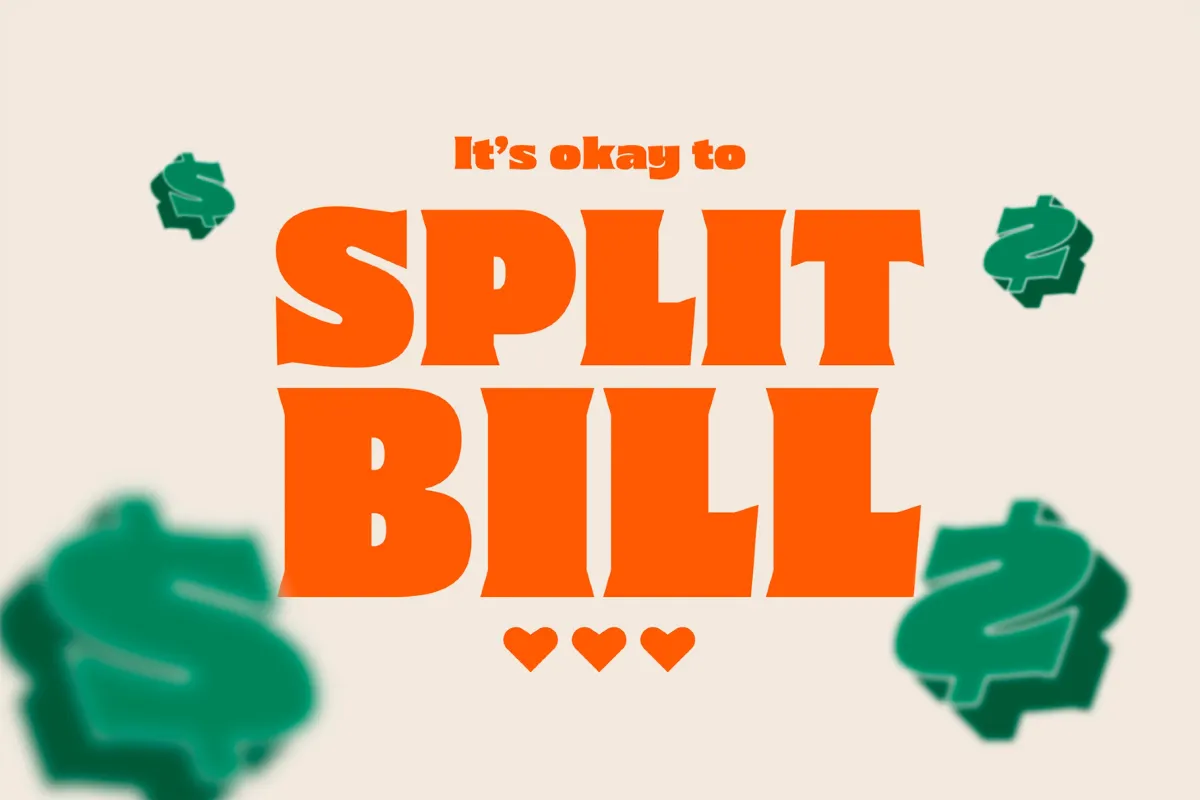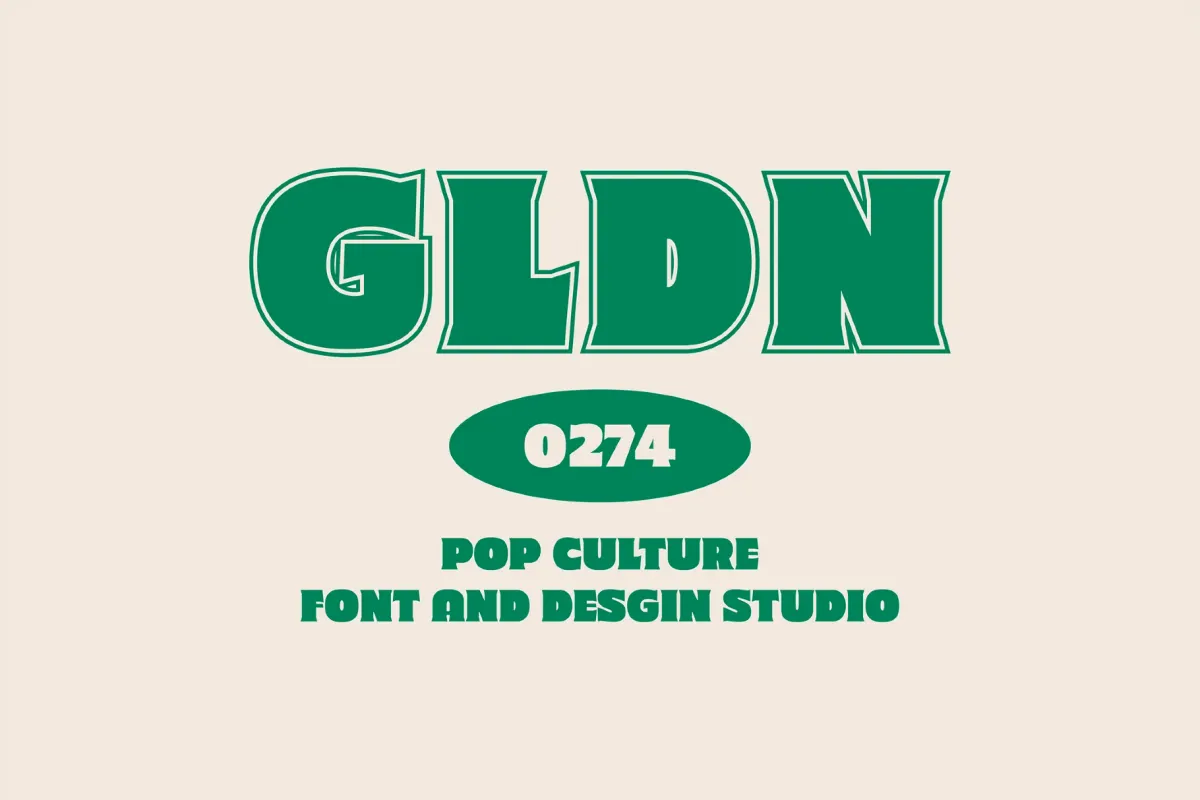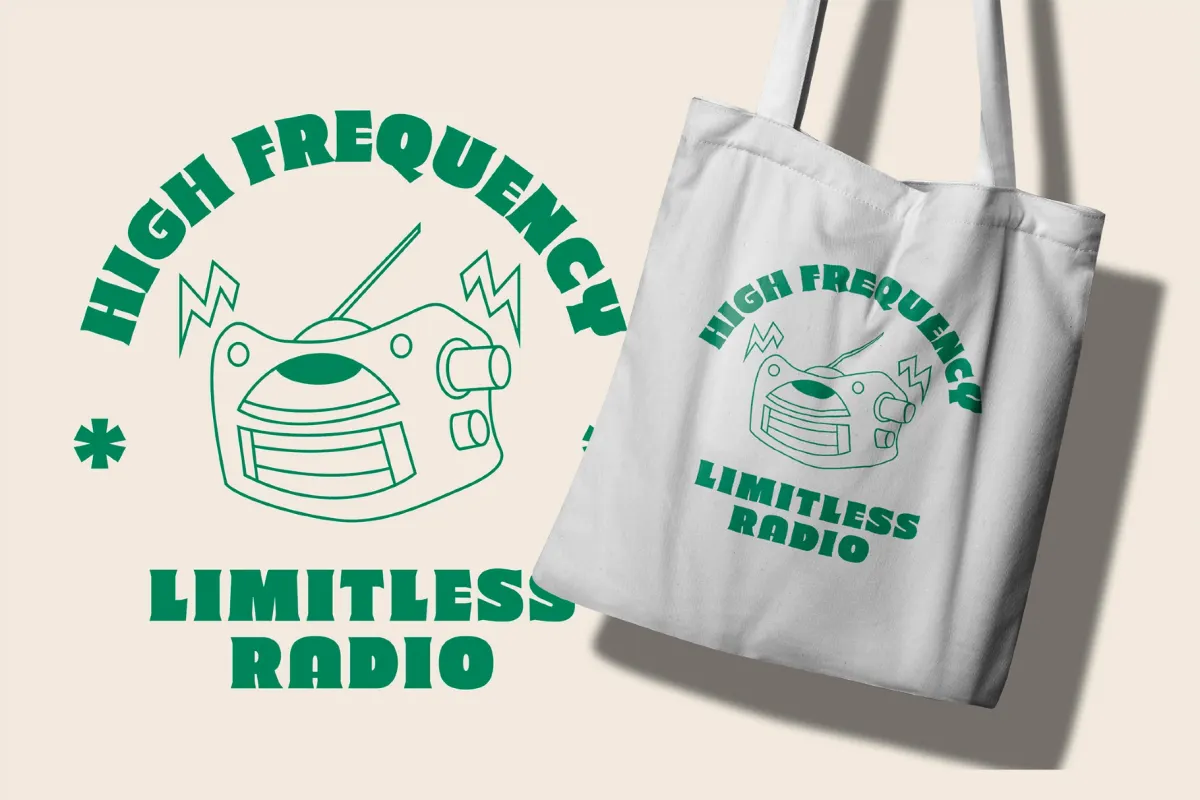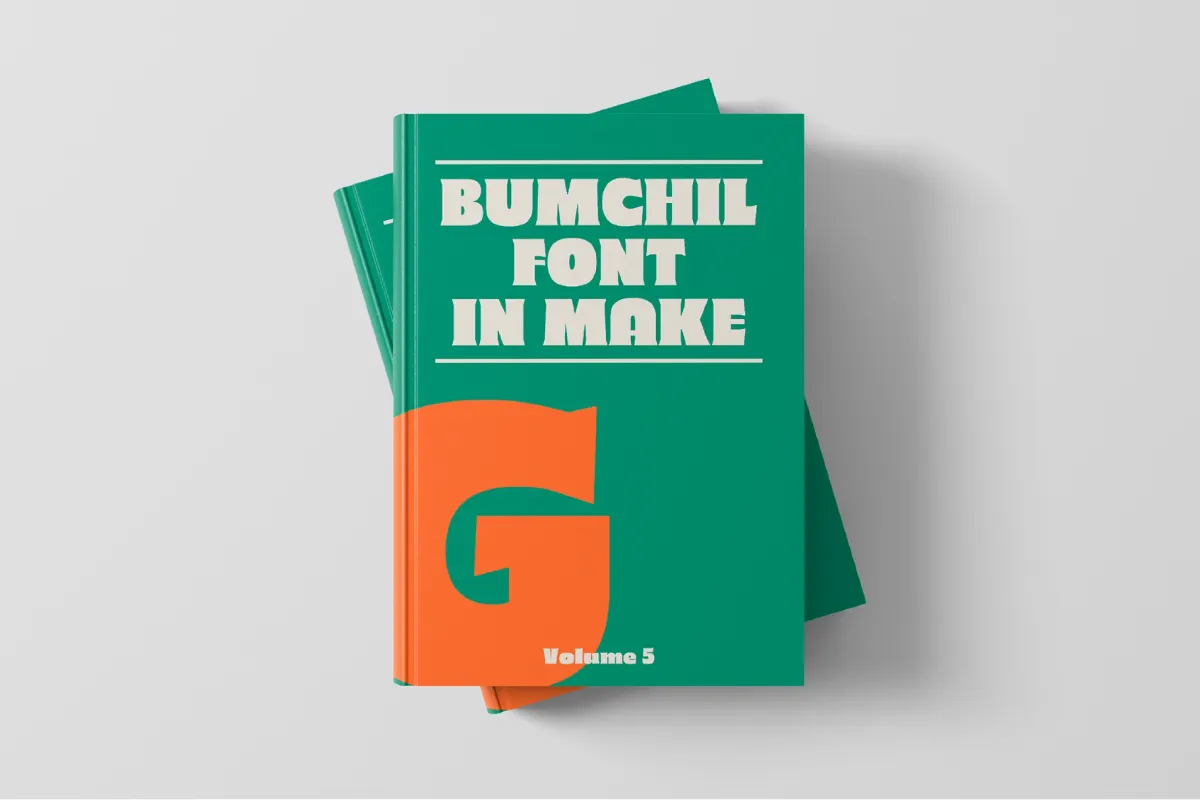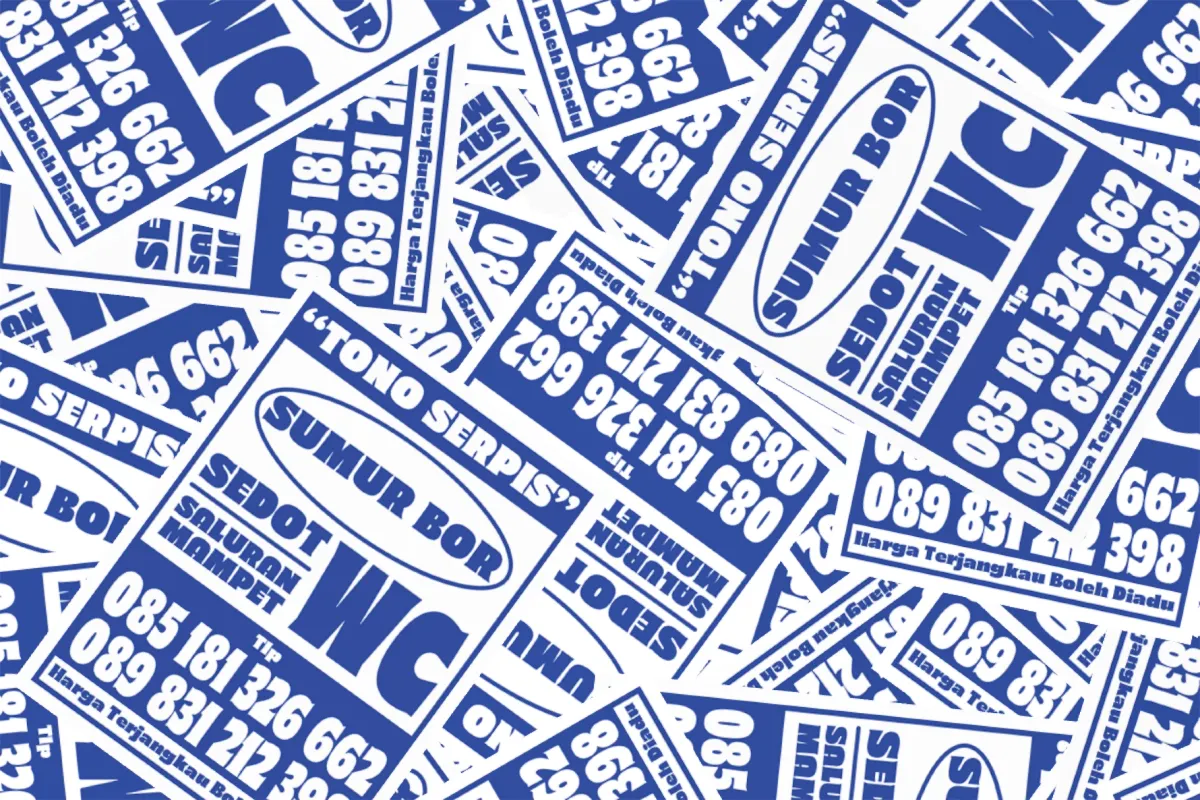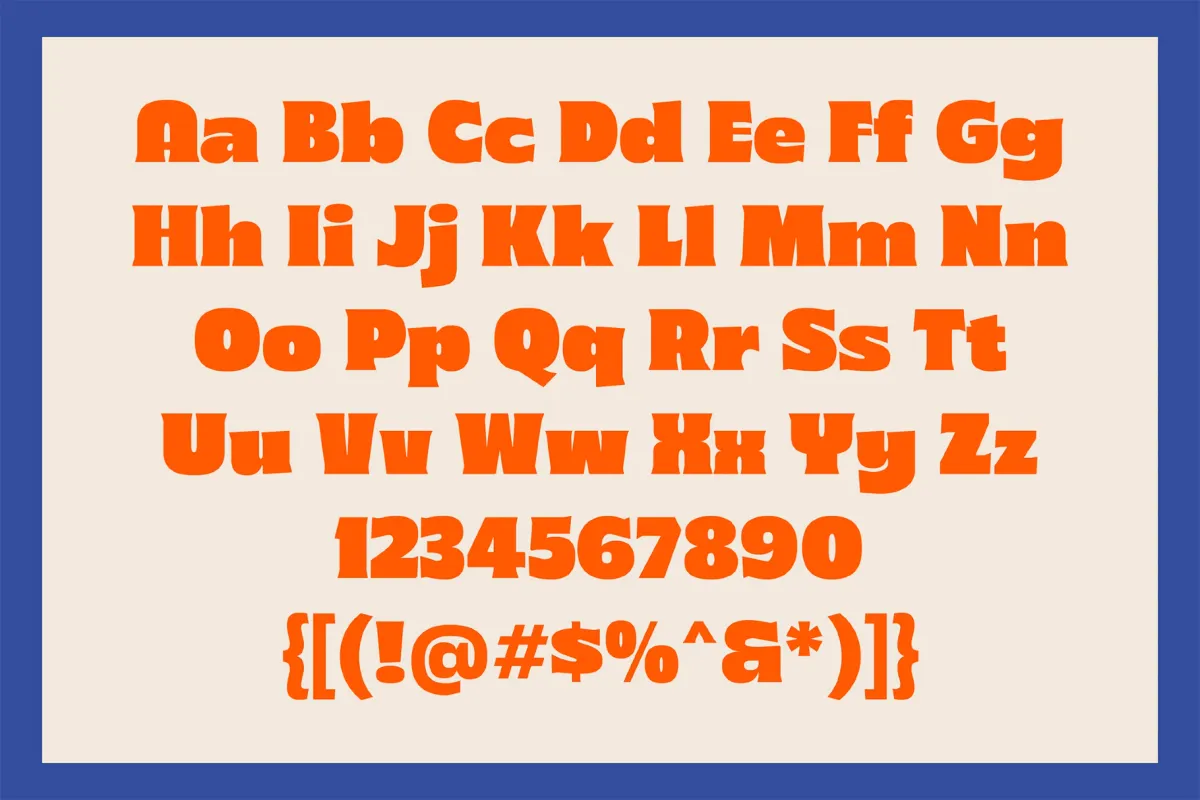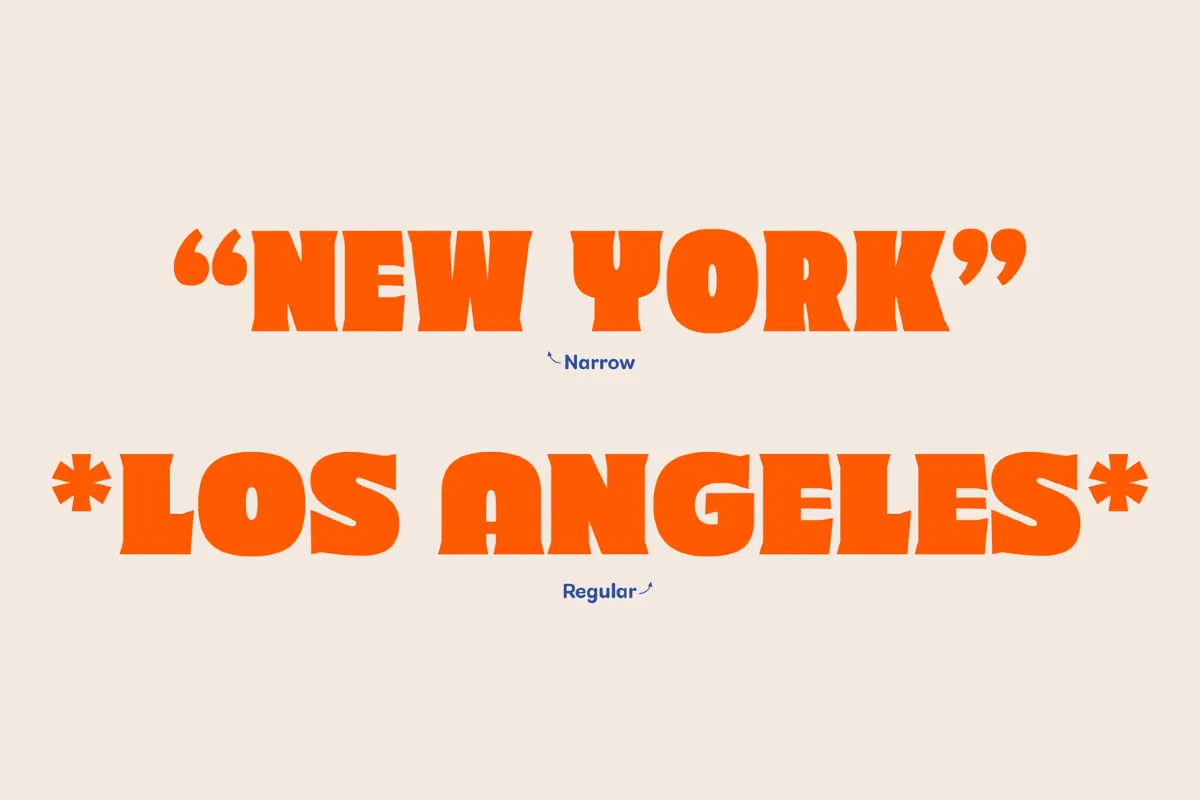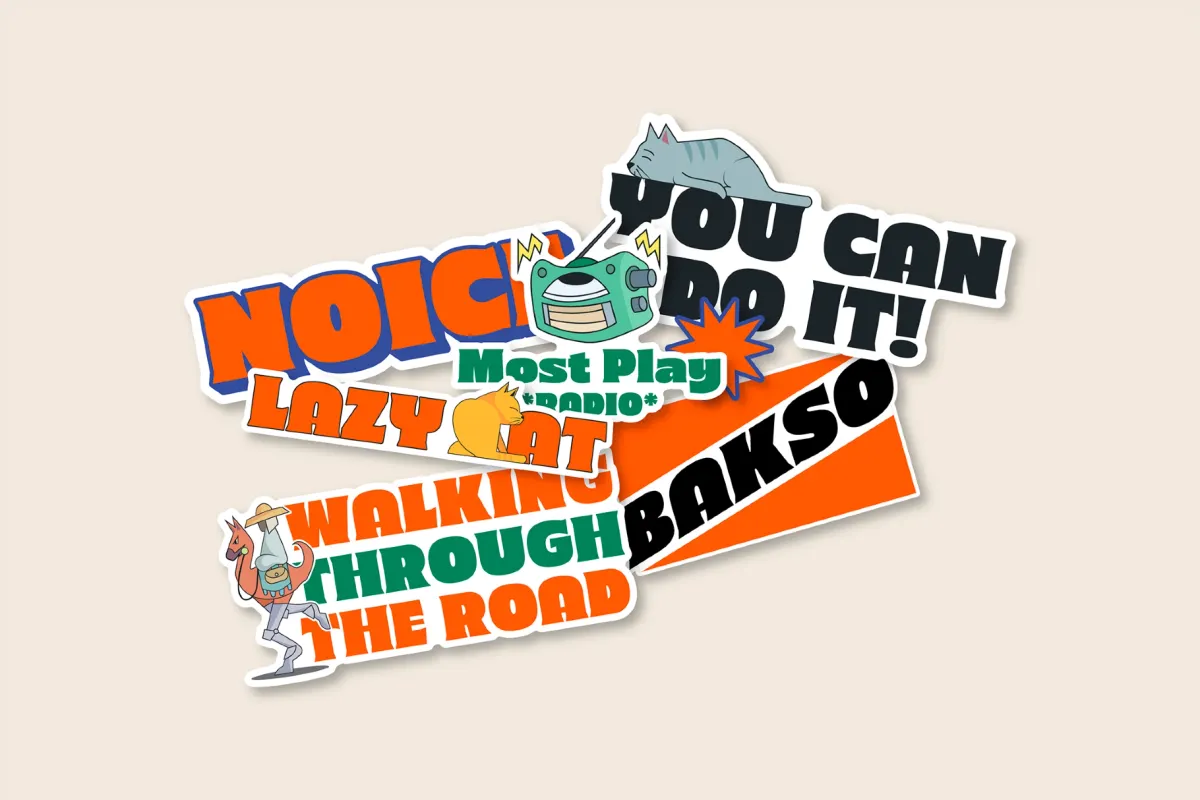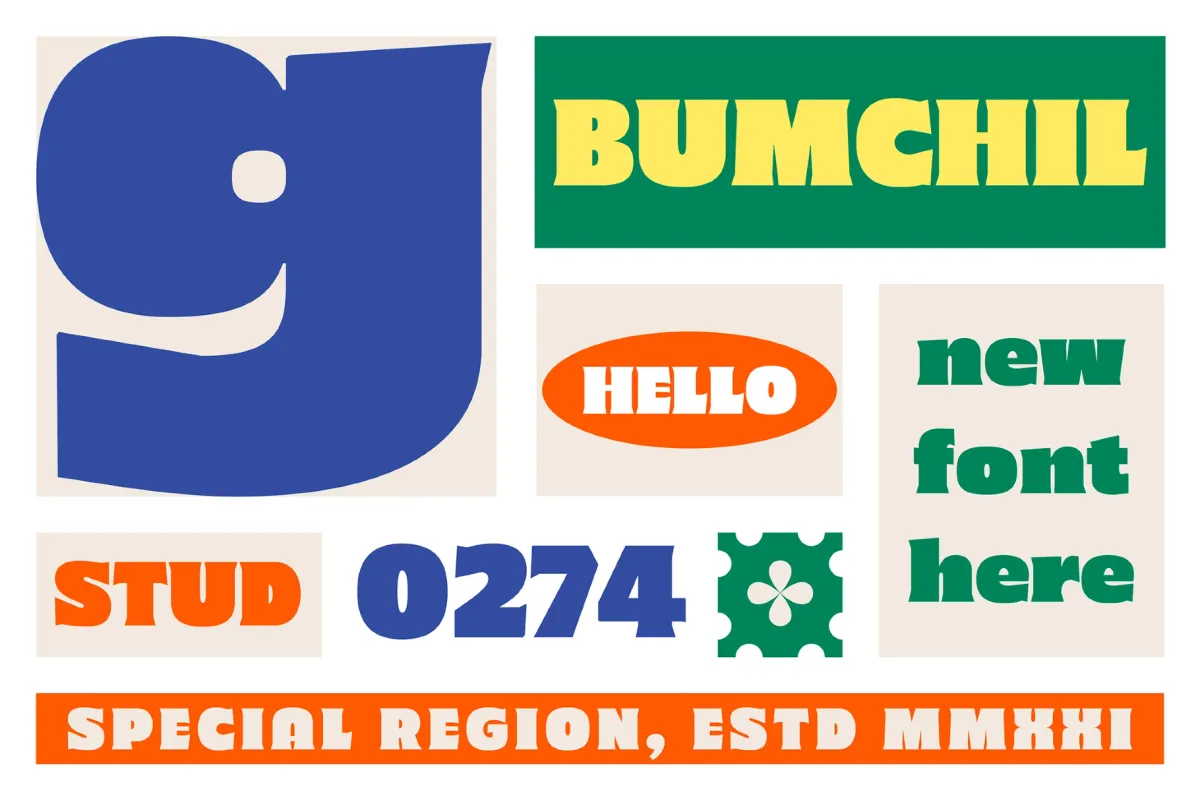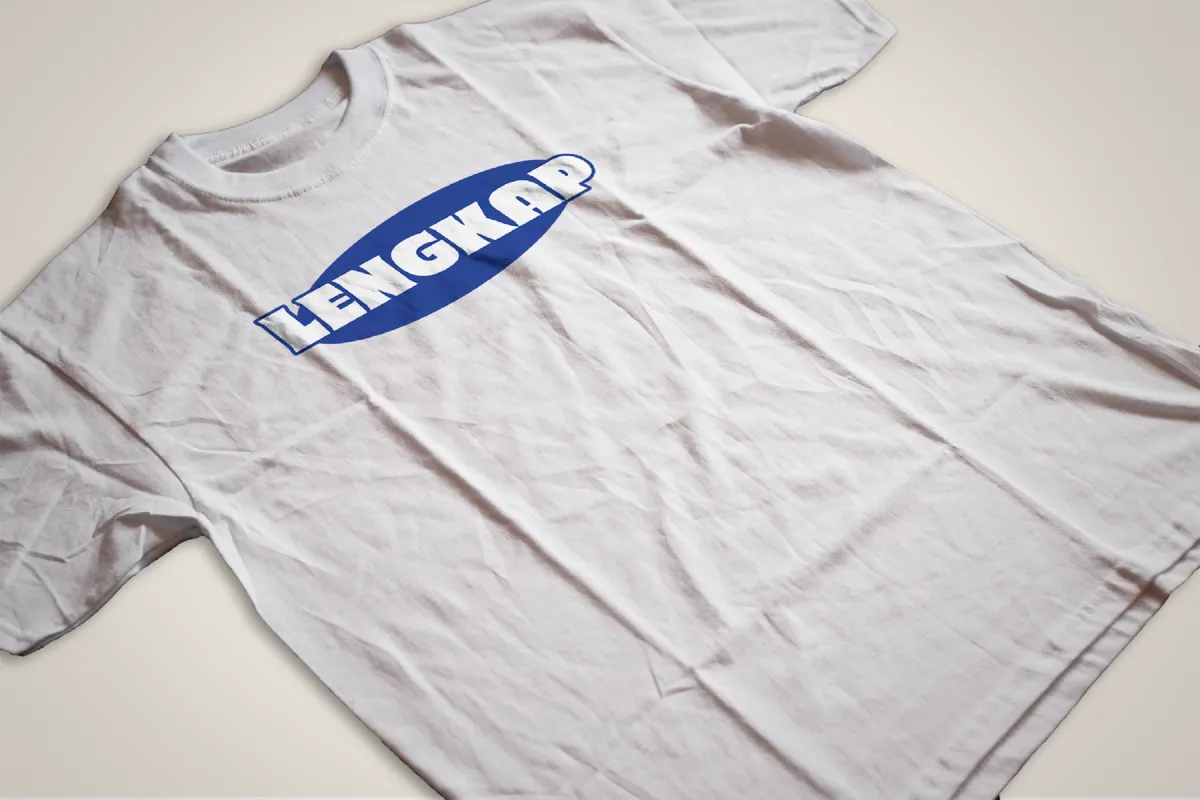
SG BUMCHIL
SG Bumchil
SG BUMCHIL is a bold character display typeface rooted in vintage funk and expressive letterpress nostalgia. Its exaggerated serifs and bloated midsections spread the spirit of 1970s poster design, retro cereal box lettering, and the hand-cut wood type.
What sets BUMCHIL apart is its subtle asymmetry and stylized tapering. With three expressive styles, plus a full character set, it’s a complete typographic toolkit built for bold creative statements: e.g., stickers, zines, posters, and music art.
- Regular, Narrow & Slanted styles;
- full uppercase and lowercase sets, numbers, punctuation & multilingual support.